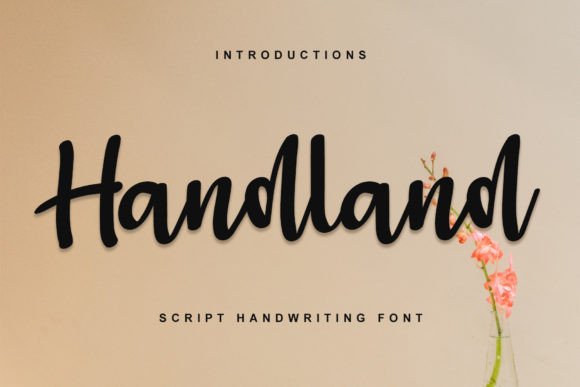
Introducing Handland Font - An Ode to Timeless Elegance and Unparalleled Sophistication
In a world craving authenticity and individuality, Handland Font emerges as a beacon of brilliance, illuminating your digital creations with timeless grace. Meticulously crafted by the visionary YanStudio, Handland is an exquisite script font, a perfect embodiment of contemporary flair and classic charm.
Handland's meticulously designed characters, each a testament to precision and artistry, dance harmoniously across your screen, captivating your audience with their effortless elegance. Experience the allure of a font that transcends the boundaries of time, breathing life into your projects with unparalleled sophistication.
Whether you're a creative professional seeking to leave an unforgettable impression or a design enthusiast yearning for a touch of timeless beauty, Handland Font stands as your trusted companion. Imagine your business letters exuding an aura of professionalism and poise, your social media posts radiating charm and elegance, and your invitations radiating a warmth that resonates with your guests.
Enter the realm of boundless creativity, where Handland Font empowers you to craft visual masterpieces that leave a lasting impact. With its versatility and adaptability, this font becomes an extension of your imagination, seamlessly adapting to diverse projects, from personal branding to marketing campaigns. Handland is not just a font; it's a gateway to a world of endless possibilities.